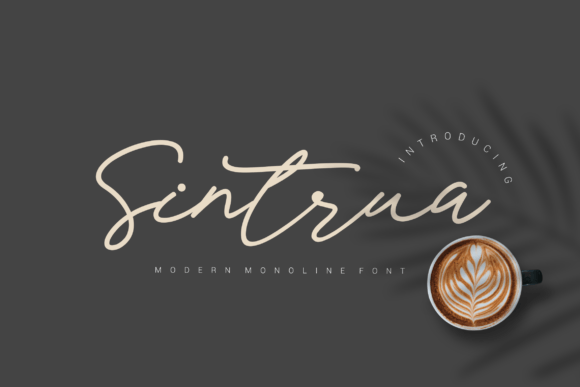
Step into the realm of captivating expression, where every letter dances with an alluring grace. Introducing Sintrua, a script font that intertwines the elegance of handwritten curves with the allure of modern minimalism. This enchanting creation by kalingga.albert is not just a font; it's a symphony of strokes, a masterpiece of visual intrigue that will leave an unforgettable mark on your designs.
With Sintrua, your words will flow effortlessly in an enchanting dance of beauty and readability. Each character, meticulously crafted with a monoline stroke, exudes a sense of organic fluidity, as if penned by the hand of a master calligrapher. The delicate swashes and subtle lines add a touch of playfulness, injecting life into your text and capturing the eye with their graceful charm.
Beyond its aesthetic brilliance, Sintrua is a font of profound versatility. Whether you're crafting a heartfelt personal note, designing a captivating logo, or leaving a lasting impression on your resume, Sintrua adapts seamlessly to your vision. Its innate elegance elevates your designs to new heights, transforming the ordinary into the extraordinary.
If you seek a font that speaks to your soul, a font that adds a touch of magic to your creations, then Sintrua is your muse. Let its enchanting curves and captivating flow ignite your imagination, inspiring you to craft designs that resonate with emotion and leave an everlasting impact.
So, surrender to the allure of Sintrua, the script font that will redefine your design aesthetic. With its enchanting beauty and boundless versatility, it's the perfect choice for those who dare to dream, to create, and to leave an unforgettable impression.